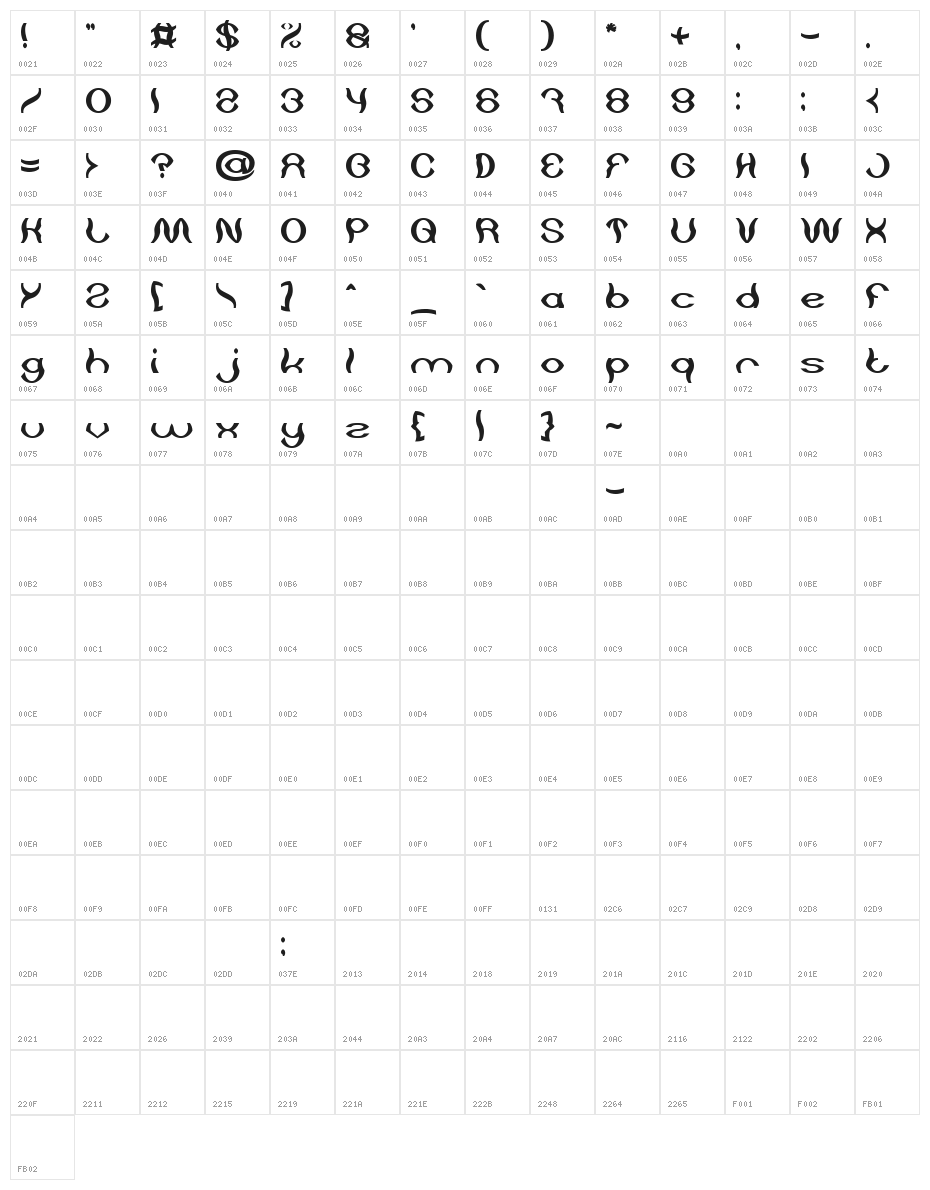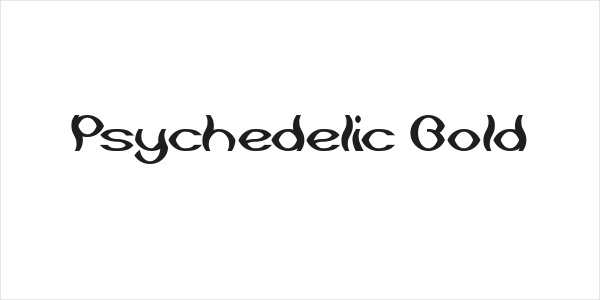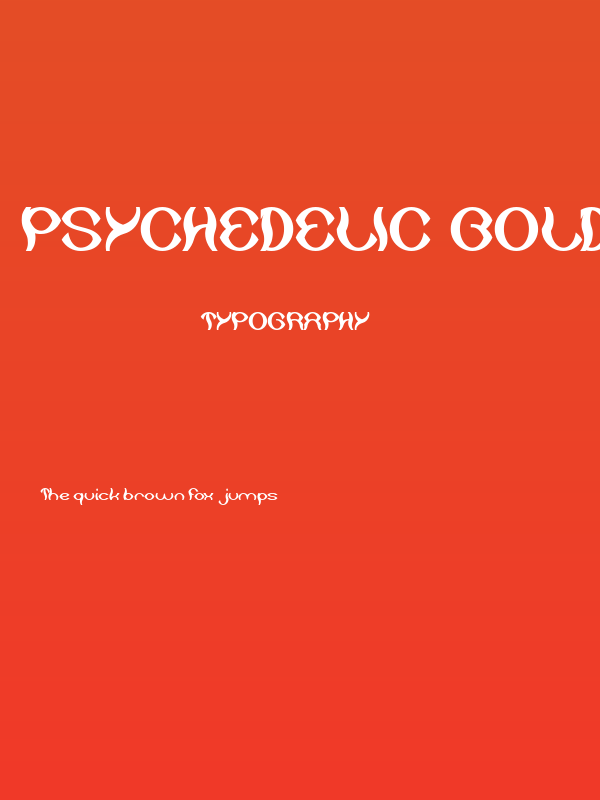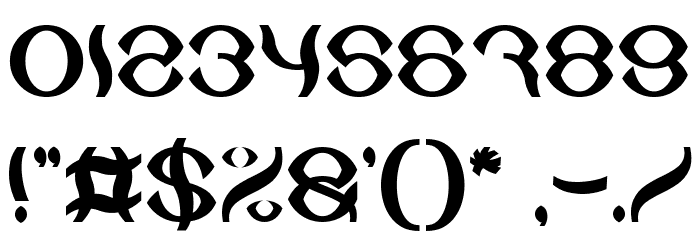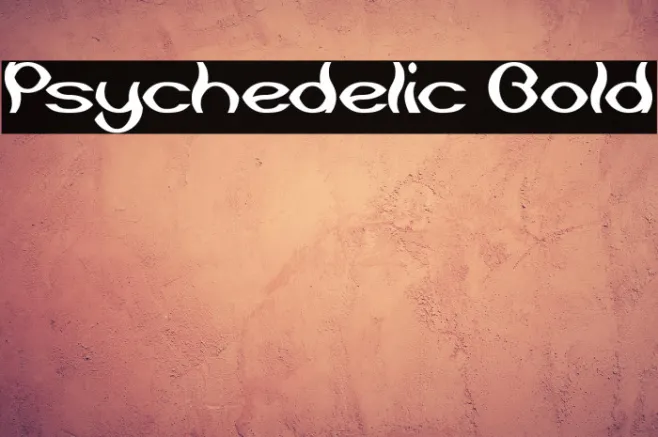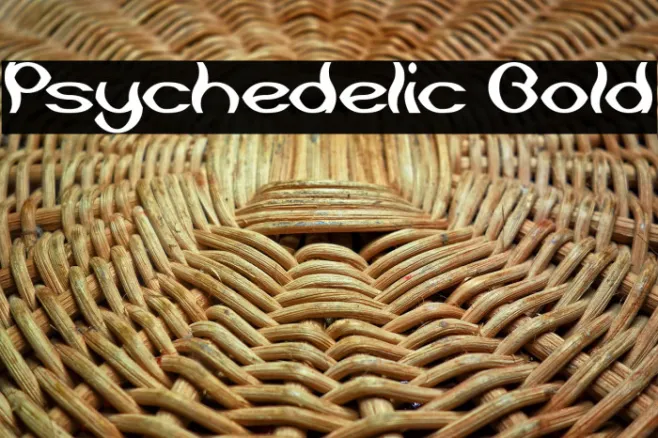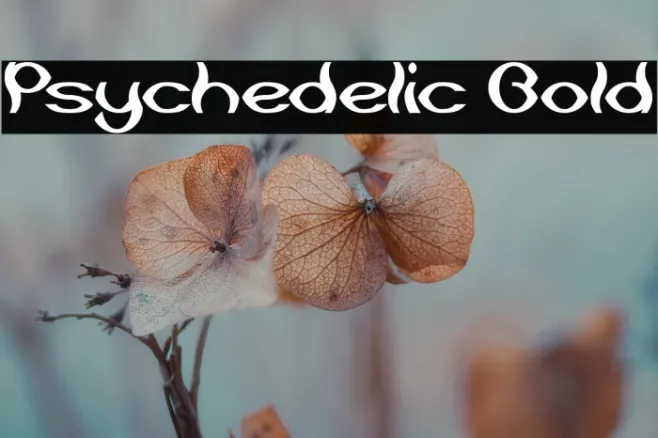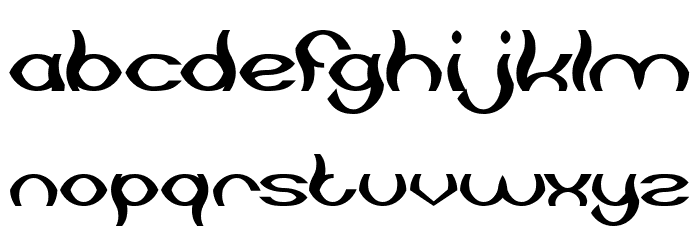
Psychedelic Bold Font
Psychedelic Bold Description
This font features a bold and curvaceous design, reminiscent of the psychedelic era. The characters are uniquely stylized with swirling, organic shapes that create a sense of movement and fluidity. Each letter is crafted with a playful yet bold aesthetic, making it stand out with its artistic flair. The numbers and special characters follow the same design principles, ensuring a cohesive look across all elements. This font is ideal for projects that aim to capture a retro or artistic vibe, with its distinct and memorable appearance.
| Name | Psychedelic Bold |
| Font Family | Psychedelic |
| Overall Style | Psychedelic, Retro, Artistic |
| Proposed Projects | Ideal for music festival posters, retro-themed branding, album covers, and artistic event invitations. |